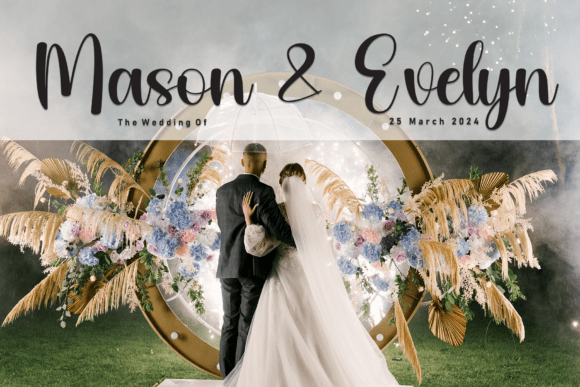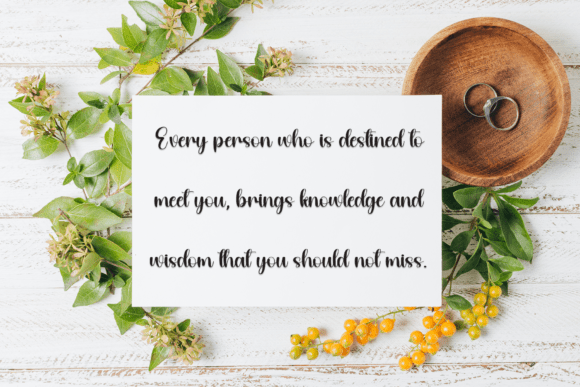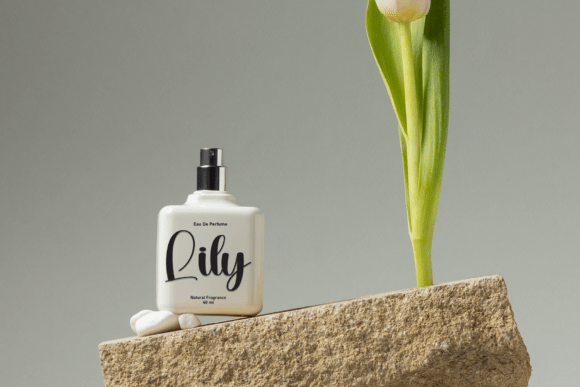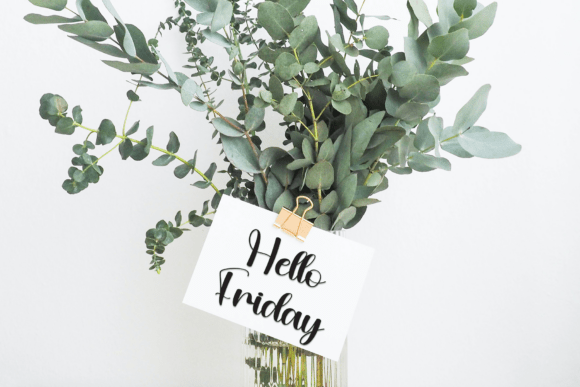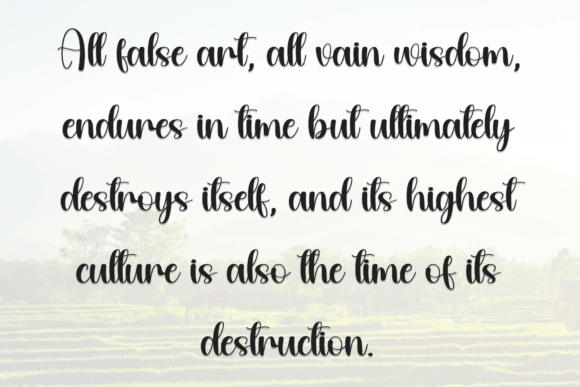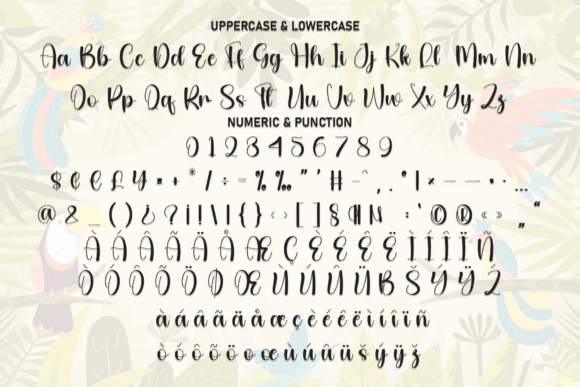
The Magic of Fantasy Font: Elevating Your Designs with Elegance and Whimsy
I’ll never forget the time I was working on a wedding invitation project, and my client asked for a font that exuded elegance, sophistication, and a touch of playfulness. I scoured the internet, tried out countless fonts, but nothing seemed to fit the bill. That was until I stumbled upon Fantasy Font, a beautiful handwritten script font that captured the essence of everything I was looking for. In this article, I’ll share my love for Fantasy Font, its features, and how to make the most of it in your designs.
A Personal Review: What I Love About Fantasy Font
Fantasy Font has quickly become one of my go-to fonts for a variety of projects. Here are some things I love about it:
- ✨ Elegant and refined strokes that add a touch of sophistication to any design
- ✅ Flowing curves that create a sense of movement and fluidity
- 💫 Perfect for invitations, branding, and stationery, where a personal touch is desired
- 🎨 Highly versatile and can be used for a range of creative projects, from digital designs to print materials
While Fantasy Font is an amazing font, there are a few things to keep in mind:
- 🤔 Some of the more intricate glyphs and swashes may not display correctly in older software or browsers
- ⚠️ May require some manual kerning to achieve optimal results, especially when using all-caps or mixing with other fonts
The Story Behind Fantasy Font
Fantasy Font was designed by a talented type designer who drew inspiration from classic calligraphy and modern hand-lettering techniques. The goal was to create a font that would evoke a sense of elegance, freshness, and creativity, while still being highly legible and versatile. The result is a beautiful, stylish script font that has captured the hearts of designers and crafters alike.
| Is Fantasy Font suitable for body text? | While Fantasy Font is beautiful, it’s best suited for headlines, titles, and short paragraphs. For body text, a more traditional serif or sans-serif font may be more readable. |